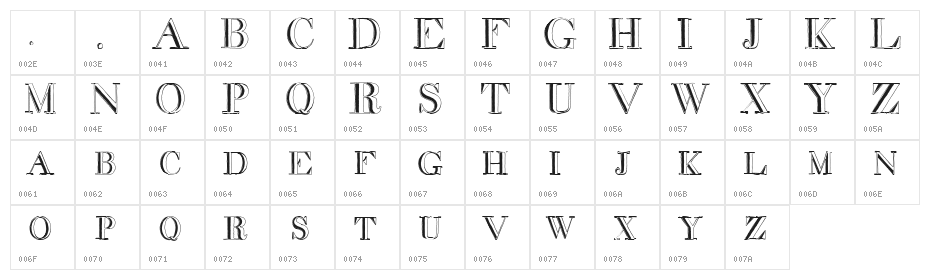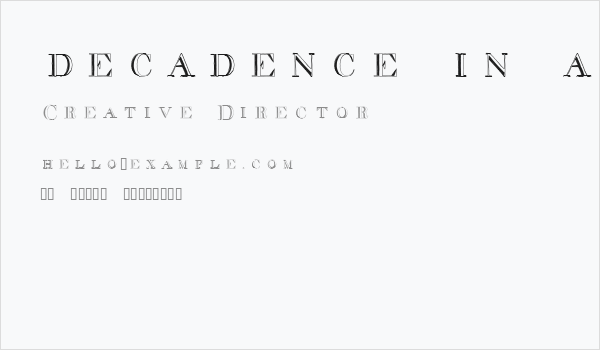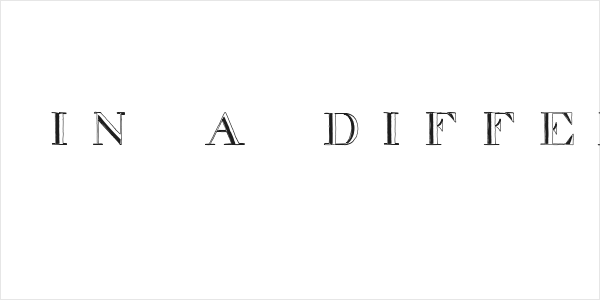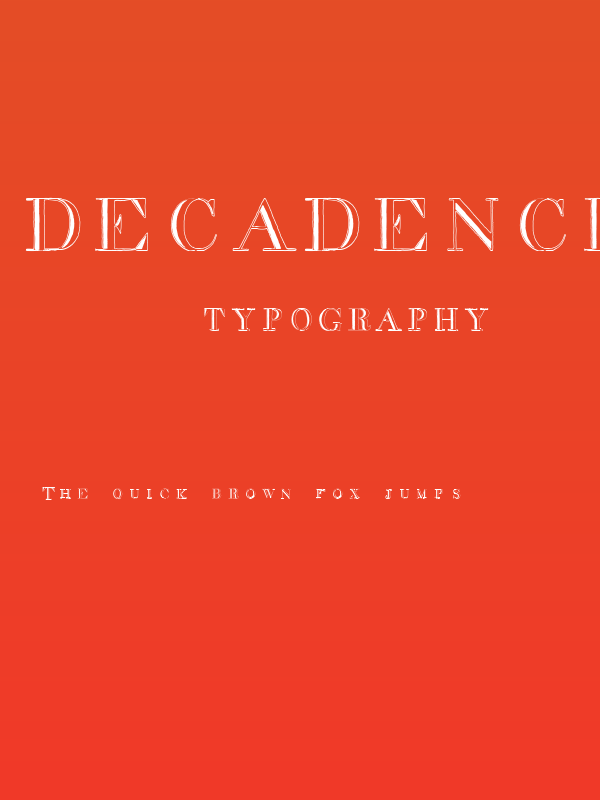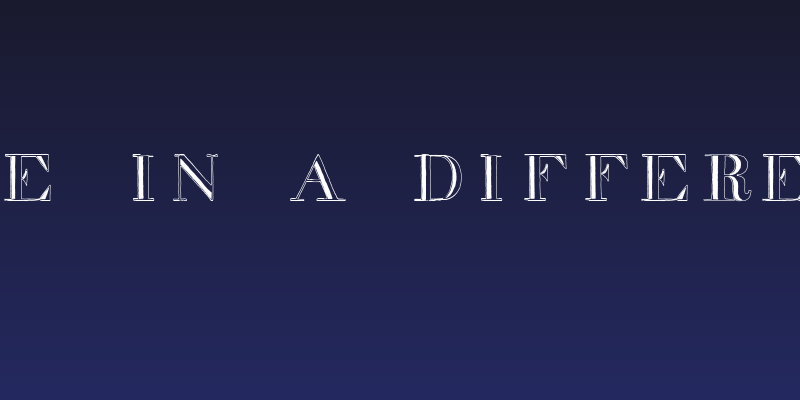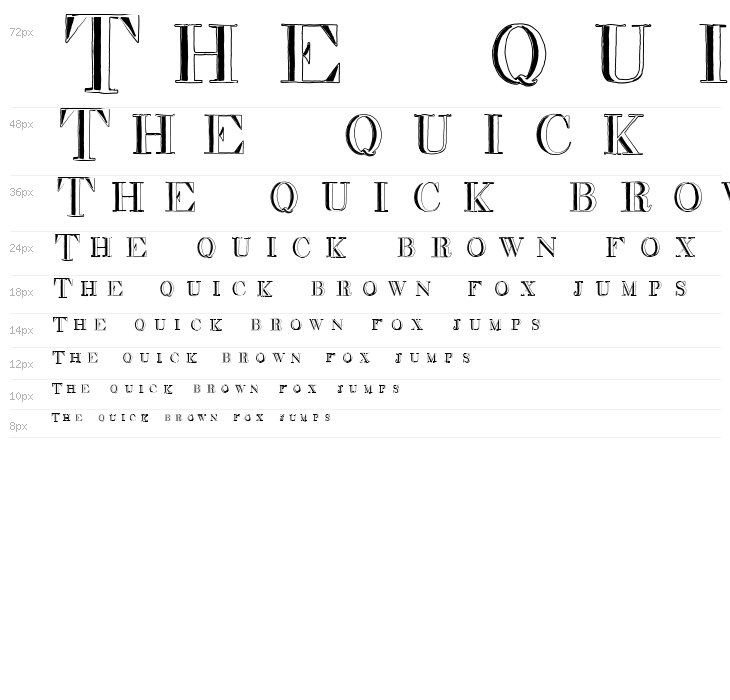
decadence in a different light Font
decadence in a different light Description
This font exhibits a classic serif style with a unique decorative twist. Each character is adorned with intricate, shadow-like detailing that adds depth and elegance. The uppercase letters are bold and commanding, while the lowercase letters maintain a refined and sophisticated appearance. The numerals and special characters follow the same ornate design, ensuring consistency throughout. This font's distinct style makes it ideal for projects that require a touch of vintage charm and sophistication.
| Proposed Projects | Ideal for wedding invitations, luxury branding, editorial design, and vintage-themed projects. |